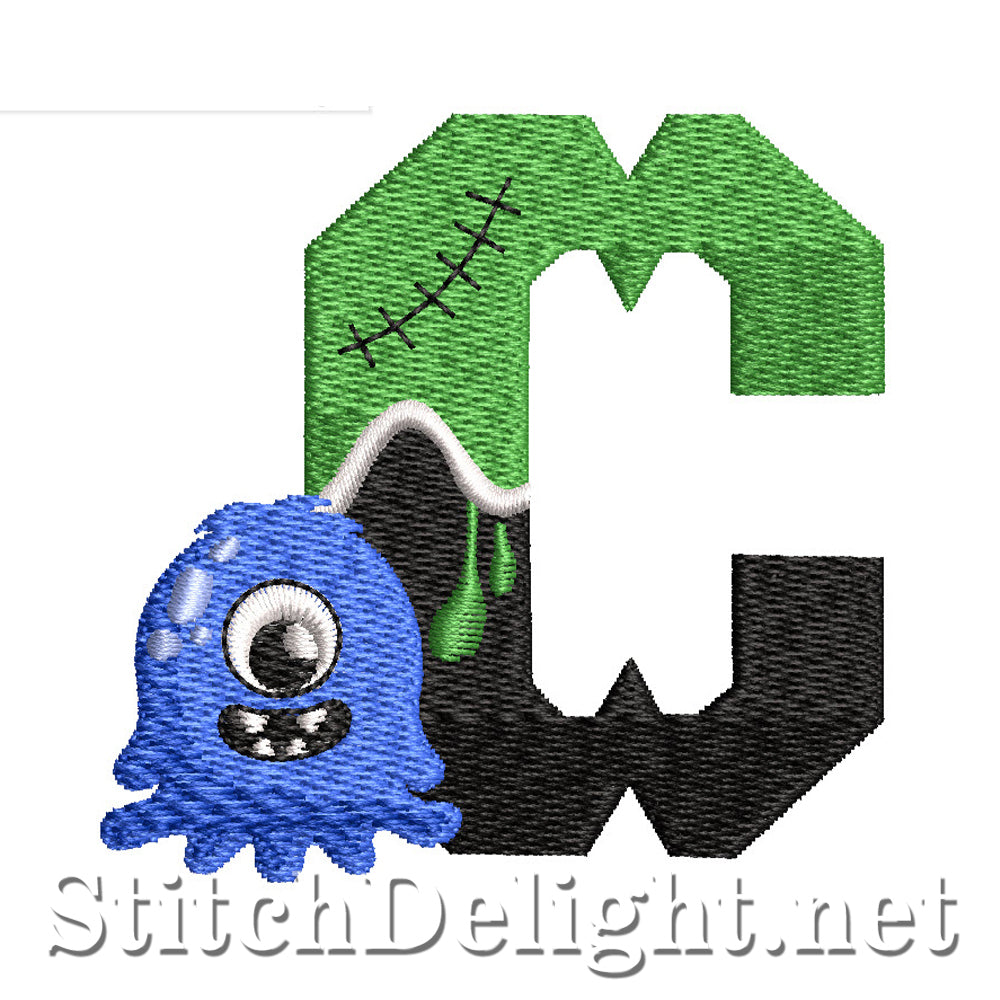
SDS1776 Scary Monster Font Font C
A scary font just perfect for any Halloween project or monster enthusiast. This scary font is compatible with hoop sizes 4x4 and up! Be sure to checkout it's matching font SDS1777 Kiddies Font